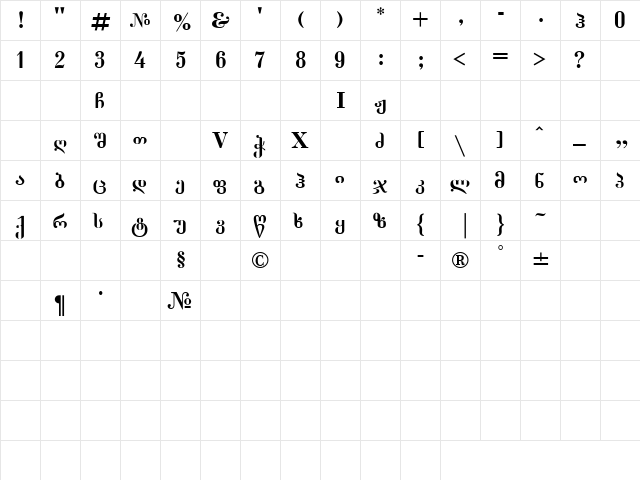
Dumbnus_n Regular
Design Context for Dumbnus_n Typeface
Dumbnus_n is a composed and adaptable typeface that performs quietly and consistently across a wide range of design contexts.